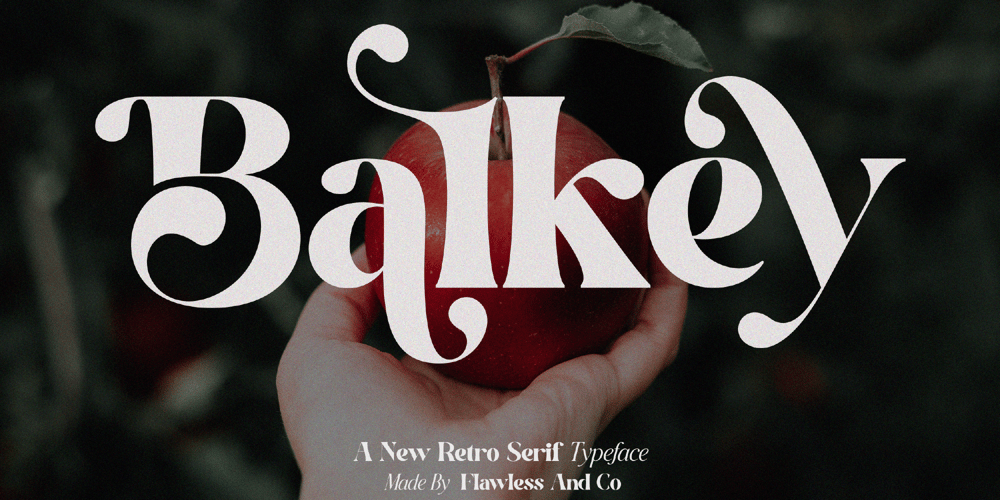
Balkey
Balkey font
Balkey Font Family was designed by Achmad Yani and published by Flawlessandco. Balkey contains 1 styles and family package options. Balkey is a captivating retro serif font that brings a touch of fun and uniqueness to your designs. With its distinct style and nostalgic charm, Balkey is perfect for projects that demand a hint of playful elegance. An Original typeface that suitable for any graphic designs such as branding materials, t-shirt, print, business cards, logo, poster, t-shirt, photography, quotes .etcThis font support for some multilingual. Modern Sweet Retro that contains uppercase A-Z and lowercase a-z, alternate character, numbers 0-9, and some punctuation.If you need help, just write me! Thanks so much for checking out my shop